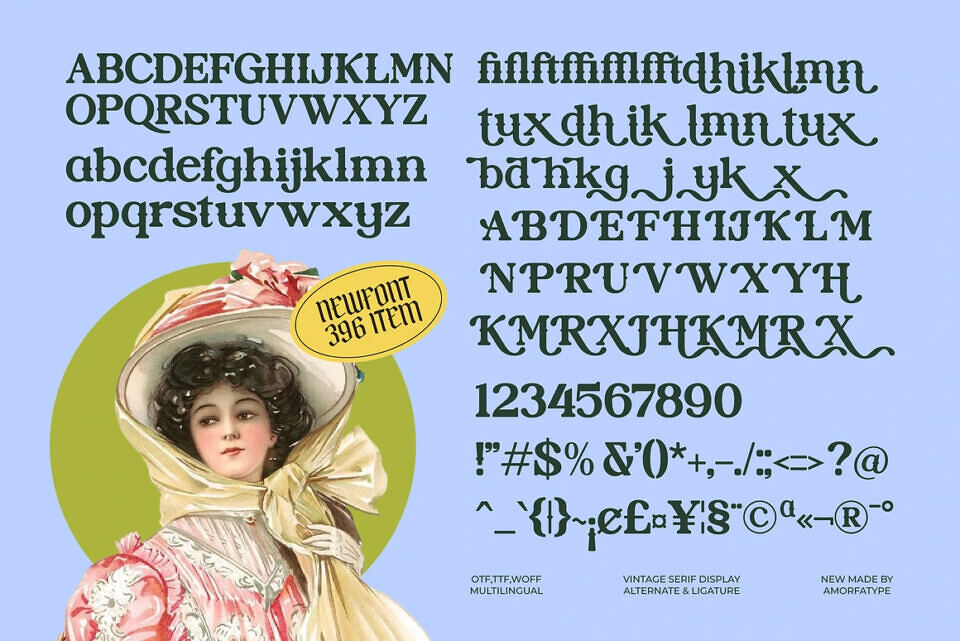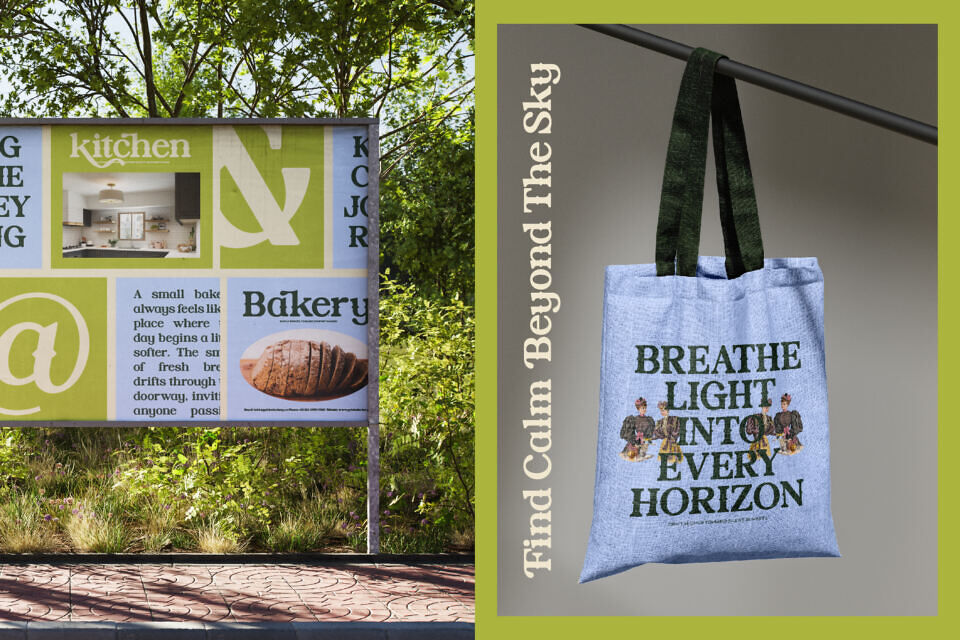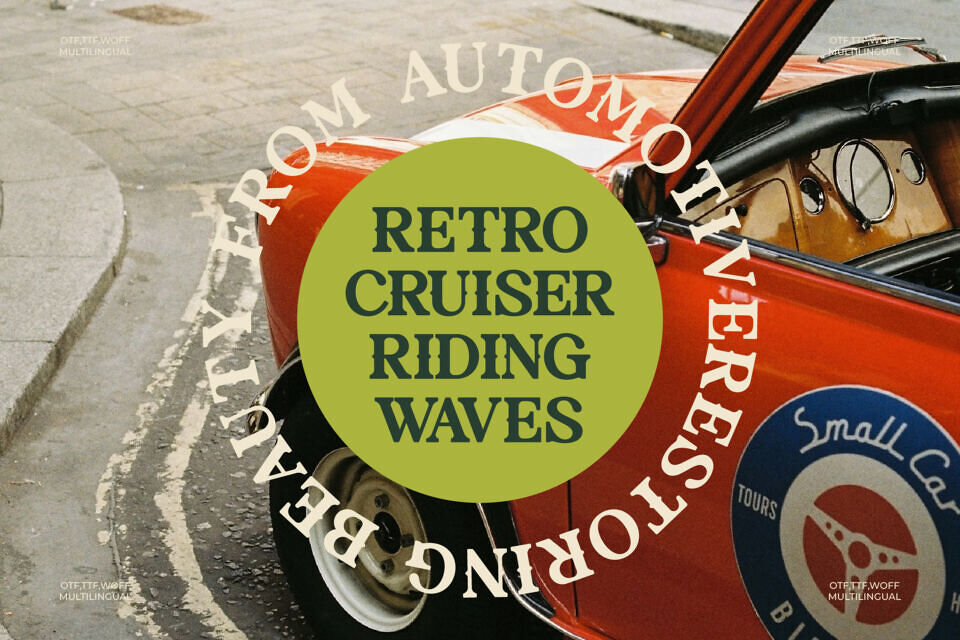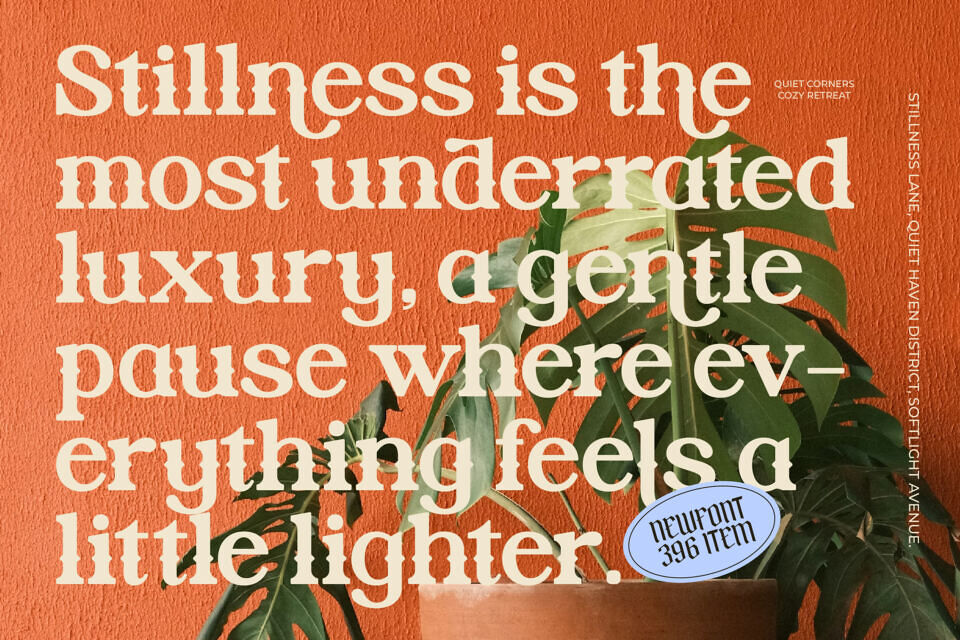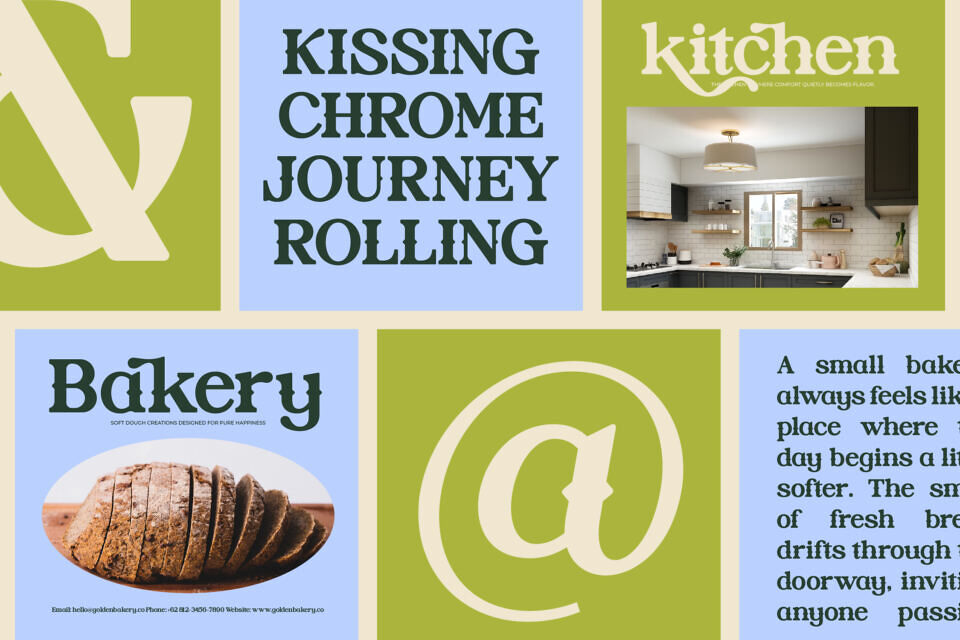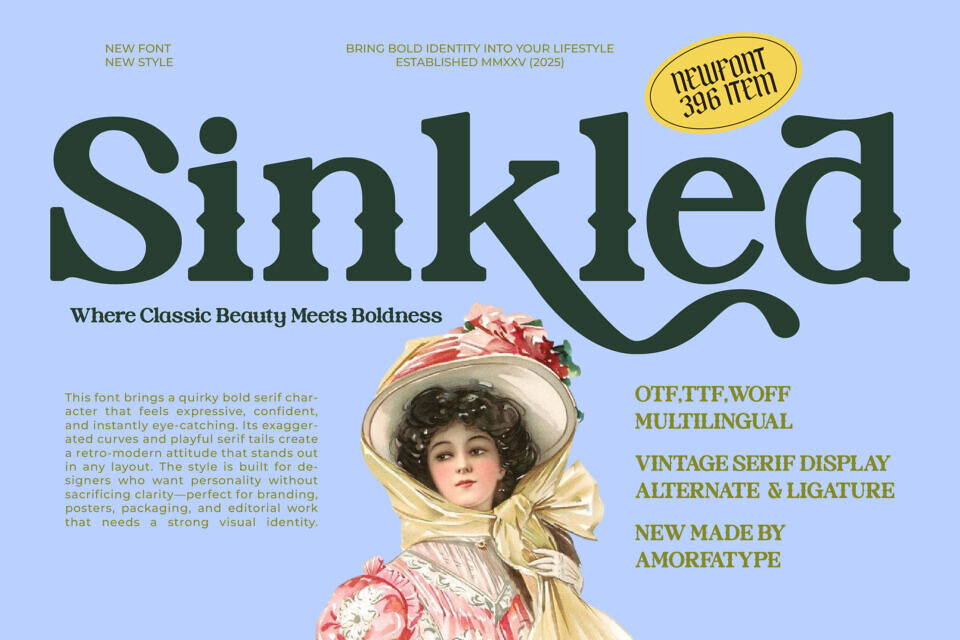
Sinkled Font
Sinkled is a vintage serif display typeface designed with bold curves, sharp details, and nostalgic charm. Its expressive letterforms blend classic serif structure with modern display aesthetics, making it a strong choice for designers who want a retro feel with a refined, polished finish.
Built for standout visuals, Sinkled works beautifully in logos, posters, packaging, editorial layouts, and large headline applications. Each character is crafted to deliver clarity, personality, and a touch of timeless elegance.